There is often a call, in design, to create something that stands out and grabs attention. From printed posters and billboard ads to product packaging and even blog headings – there are many cases where you’ll need to design something with the purpose of making the viewer stop and take notice. In cases like that, a display font that uses big, bold and unconventional imagery can work wonders. Everyone is used to seeing the same fonts that come with their computer – and if you want to draw attention to your design, you run the risk of looking the same as everyone else by using Helvetica.
Creative display fonts often make use of unconventional shapes to draw your attention. They can use unexpected shading to stand out, or use filler patterns that aren’t seen in most typefaces. Because they’re designed to be seen at scale, they can have a completely different aesthetic to regular fonts and don’t need to be readable at a variety of sizes. The key feature here is that display fonts are allowed to break all the rules – and sometimes it’s the surprising, strange and unusual typefaces that make the best headings.
Hipstelvetica
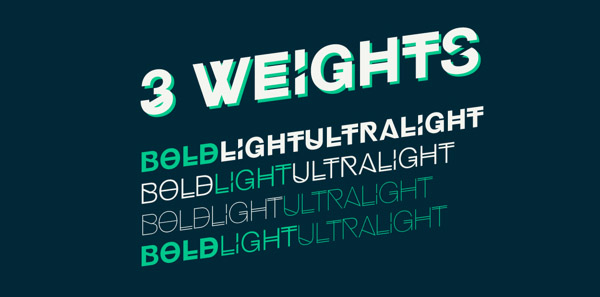
TENRE
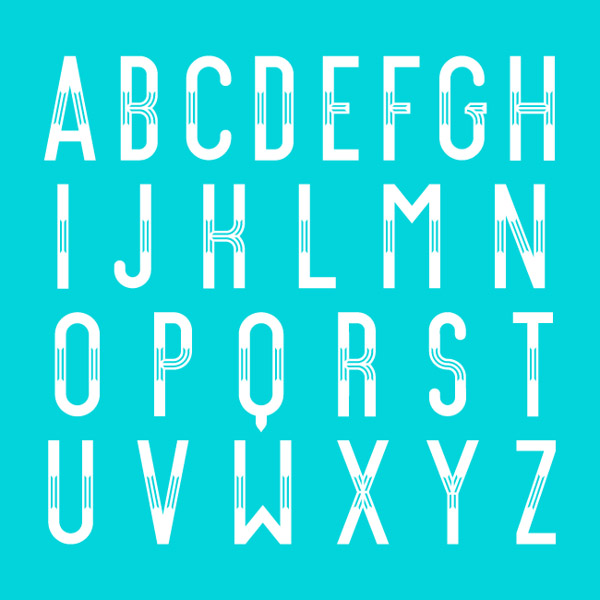
Claire Hand
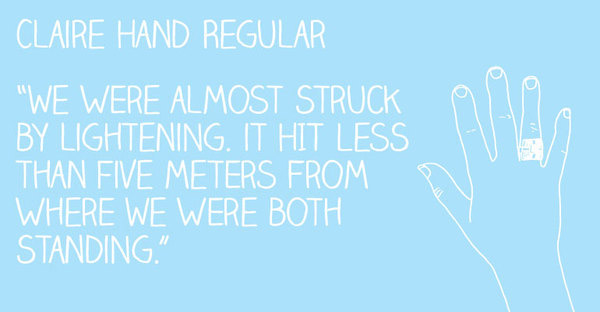
Cyberia
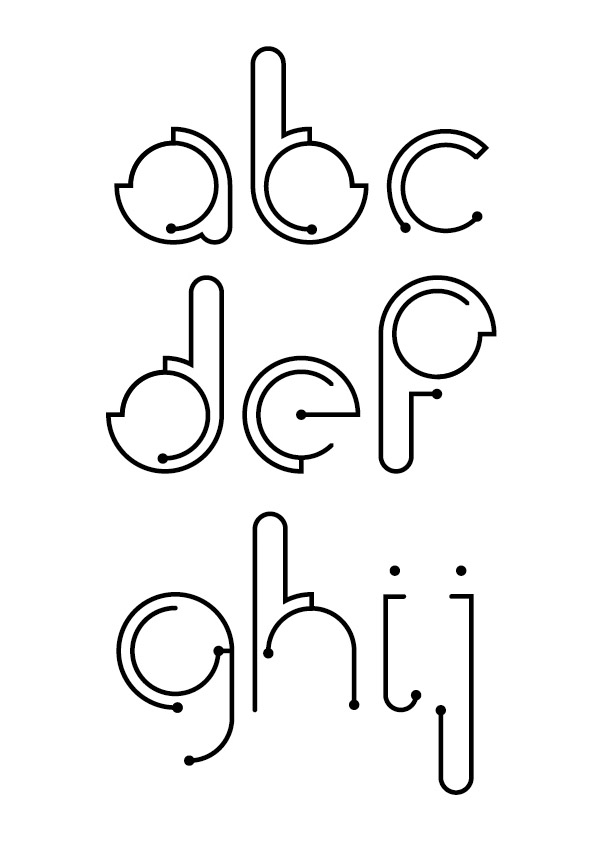
Navia
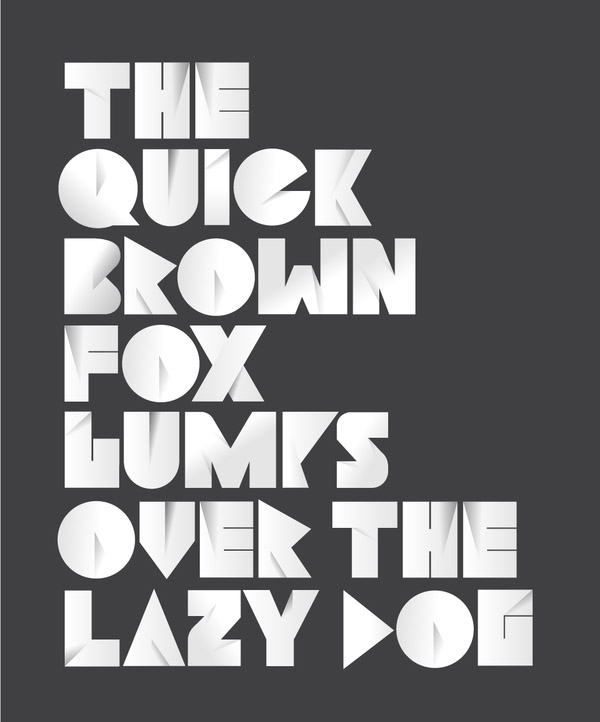
Sahara
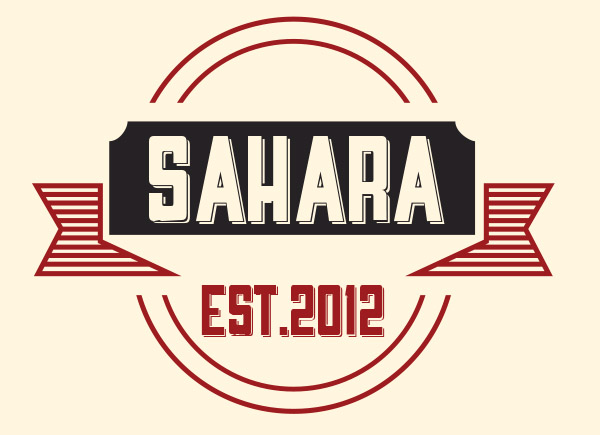
Accent
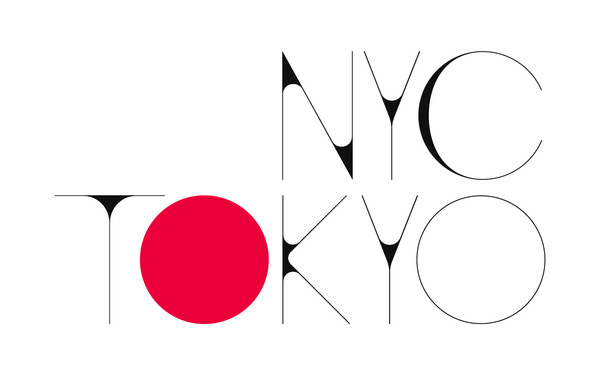
Color Lines
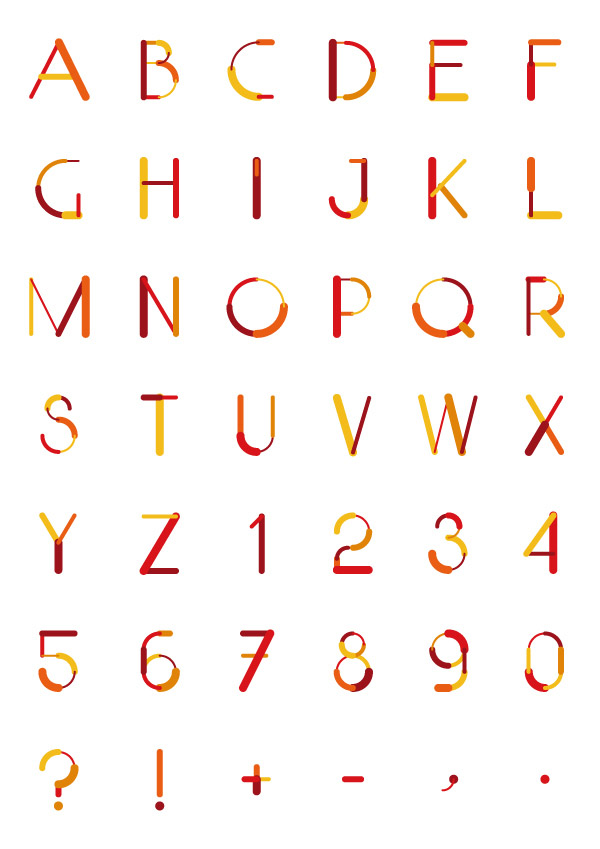
Chomp
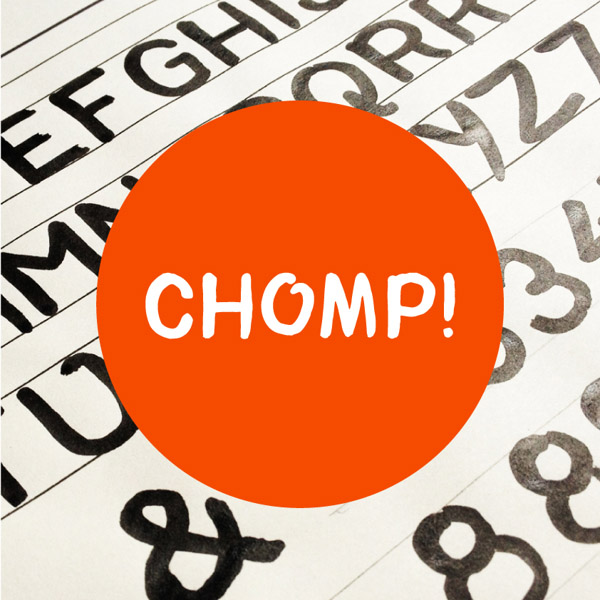
Pilaca
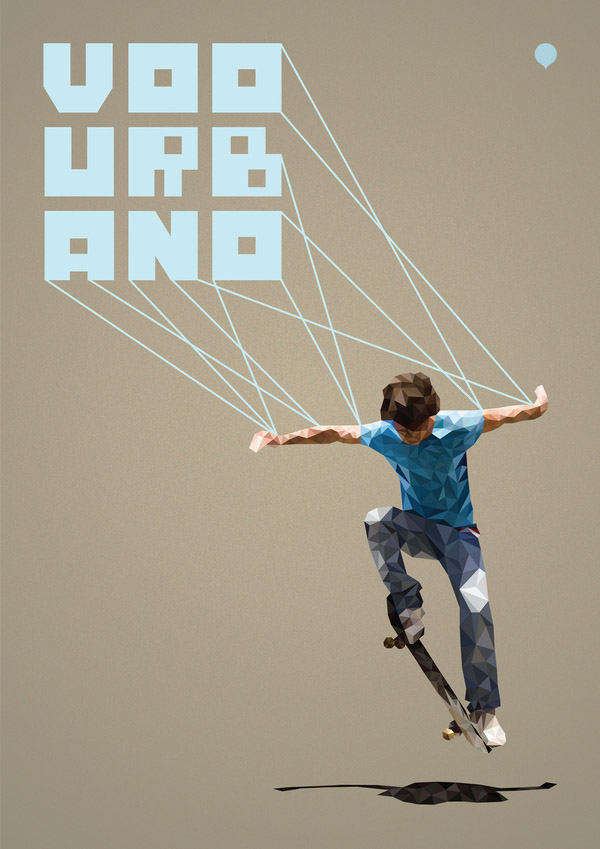
Valkyrie
Broken Records
Facunda
Mun
Nougatine
Drop Type
Stitching
Panibo
Mosaic
Mopster